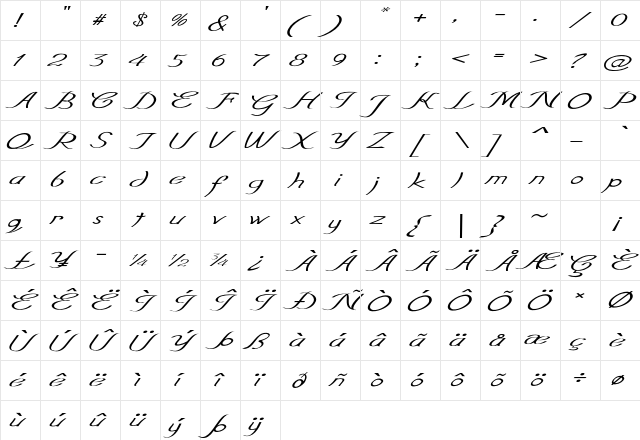
Erelon Extra-expanded Italic Free Font
Erelon Extra-expanded Italic
Style: Extra-expanded Italic
Erelon Family
Complete Erelon Extra-expanded Italic glyph index. Displaying only characters natively supported by Erelon Extra-expanded Italic font.
Design Context for Erelon
Erelon is a composed and adaptable typeface that performs quietly and consistently across a wide range of design contexts. The slanted form adds forward momentum and visual energy.
Pro Tip: Use Erelon for emphasis, pull quotes, and subheadings where its slanted energy can add rhythm to the layout.